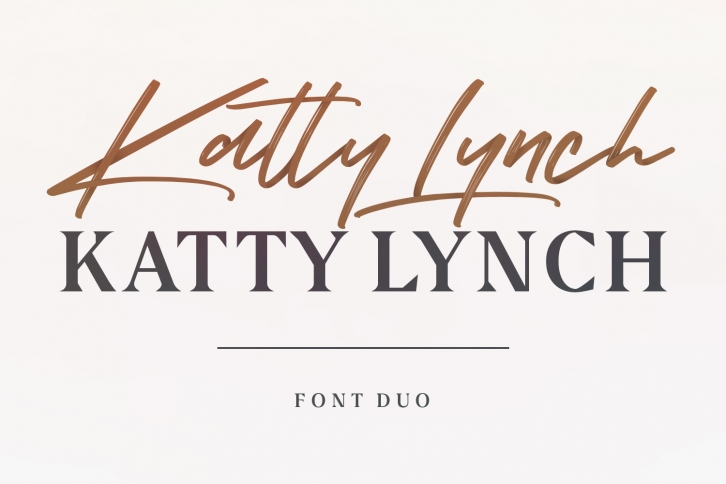
Katty Lynch Brush Font - Free Serif Download
Katty Lynch Brush Font - Free Serif Font Download
Katty Lynch Brush is a trendy and unique font with an authentic style. It was designed by Maulana Creative and it's a great choice for creative people who need such a font. It was released on May 24, 2019 and the file size is 15.34 MB. Katty Lynch Brush will add an organic vibe to any design idea!